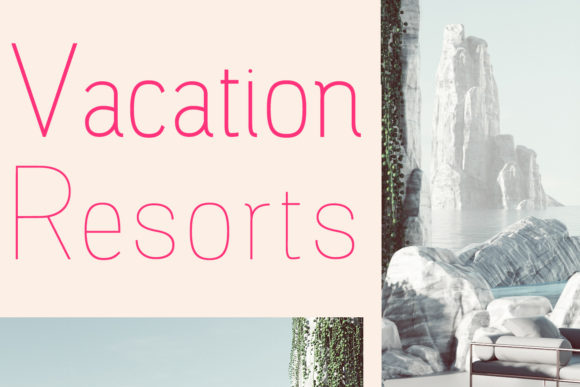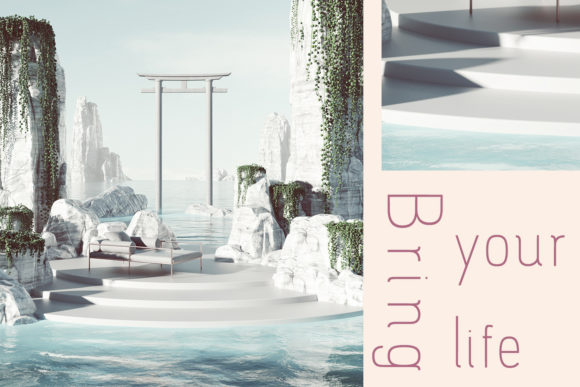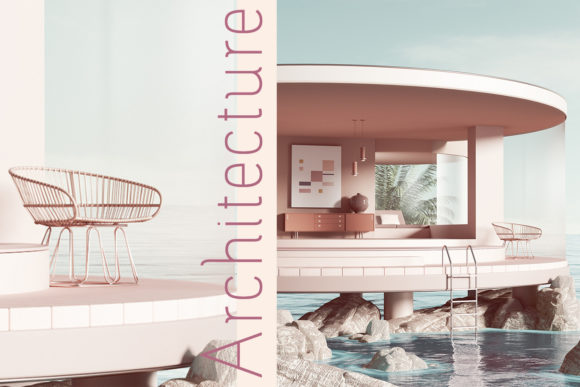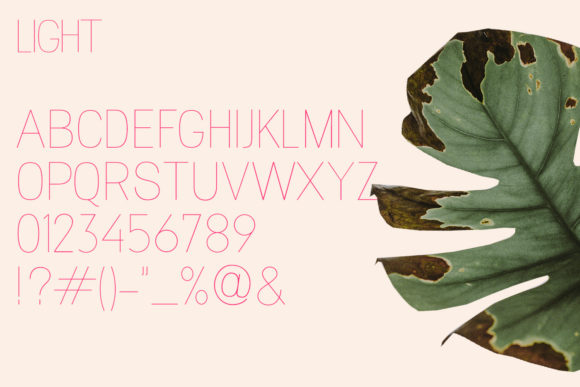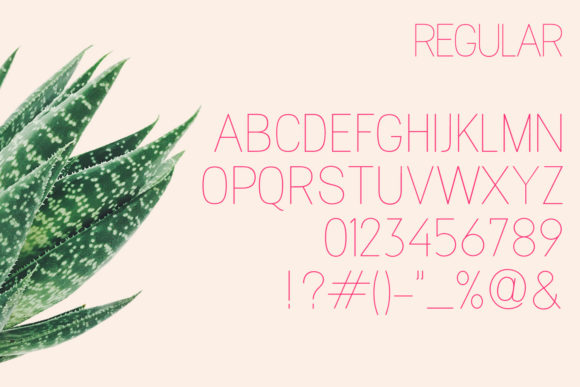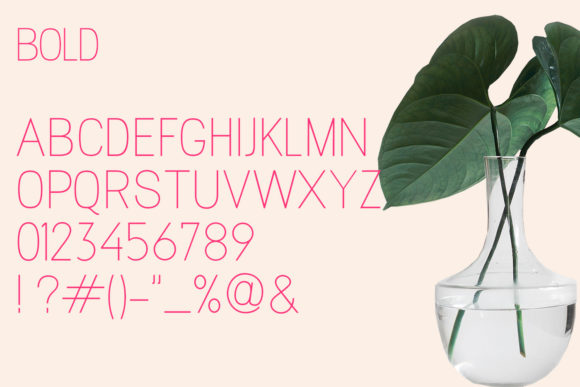
Introduction to Magnolla Font
Have you ever stumbled upon a design that just clicks? A logo, a poster, or a social media graphic that perfectly captures the essence of your creative vision? For designers, moments like these are what make all the hard work worth it. And when it comes to bringing your ideas to life, having the right design resource can make all the difference.
Enter the Magnolla Font, a stunning sans serif font that’s set to revolutionize the world of design. With its elegant and clean aesthetic, this versatile font family is perfect for any creative project that requires a touch of sophistication and style. Whether you’re working on a branding campaign, a magazine spread, or a wedding invitation, Magnolla Font is the perfect choice to elevate your design to the next level.
Not only is Magnolla Font a high-quality design resource, but it’s also available for free download, making it an invaluable addition to any designer’s toolkit. With its transparent background and sleek lines, this font is sure to make your designs stand out from the crowd and leave a lasting impression on your audience.
Key Features of Magnolla Font
- Unique, elegant design perfect for branding, logos, and typography-based art
- Easy to use and customize, making it a valuable asset for designers and artists
Honest Review: Magnolla Font
As a designer, I’m always on the lookout for high-quality design resources to elevate my creative projects. Recently, I stumbled upon the Magnolla Font, and I’m excited to share my honest review.
What works well: ✨ The Magnolla Font has a unique, elegant design that’s perfect for a variety of projects, from wedding invitations to branding materials. The font is highly customizable, allowing for easy color and size adjustments. Additionally, the font is available for free download, making it an excellent resource for designers on a budget.
What doesn’t: ⚠️ While the font is beautiful, it does require a transparent background to work properly. This can be a limitation for designers who prefer a more traditional design approach. Additionally, the font may not be suitable for projects that require a bold, attention-grabbing font.
Overall impression: I’m impressed with the quality and versatility of the Magnolla Font. While it has some limitations, it’s a great resource for designers who want to add a touch of elegance to their projects. I would recommend the Magnolla Font for any creative project that requires a high-end, sophisticated look.
Pros:
- Unique, elegant design
Cons:
- Requires transparent background
- May not be suitable for bold, attention-grabbing projects
Magnolla Font
The Magnolla Font is a high-quality design resource that offers a transparent background, making it perfect for creative projects. This font is available for free download, allowing designers to access a versatile and stylish typeface for their work.
Tips for Getting the Most Out of Magnolla Font
To get the most out of the Magnolla Font, experiment with different font sizes, colors, and styles. Combine the font with other design elements, such as images and graphics, to create a visually appealing design. Use the font in conjunction with a transparent background to create a sleek and modern look.
Common Use Cases for Magnolla Font
The Magnolla Font is suitable for a wide range of creative projects, including graphic design, digital art, and web design. Use the font for headings, titles, and body text to create a professional-looking design. The font is also great for creating social media graphics, logos, and branding materials.